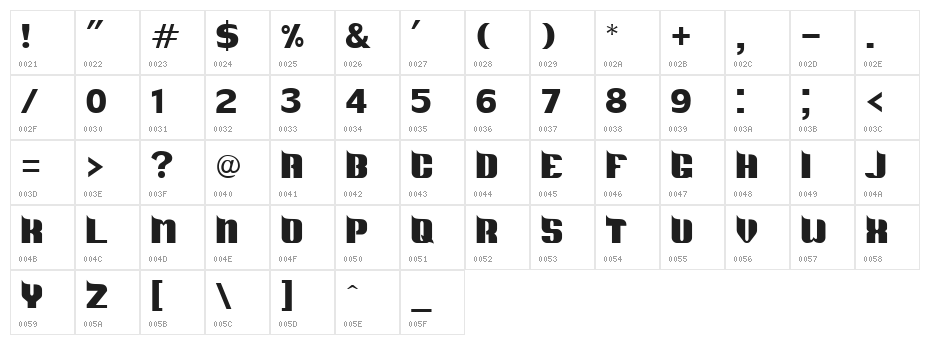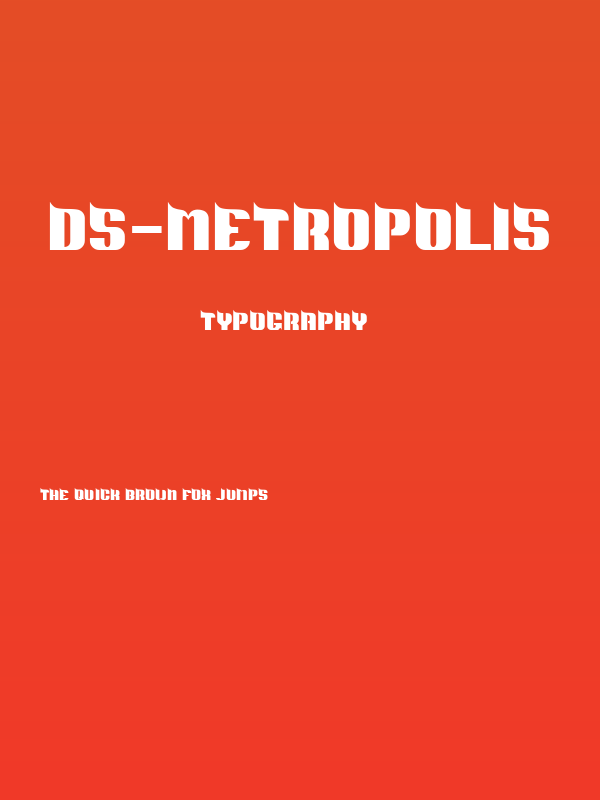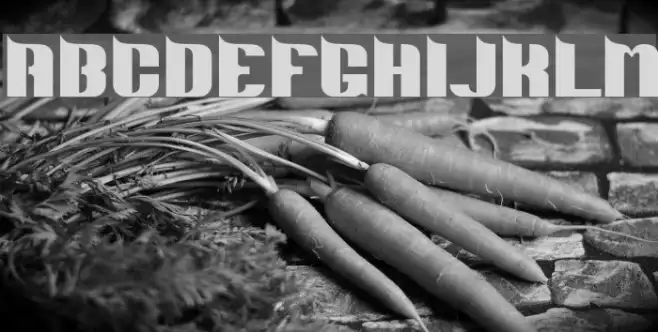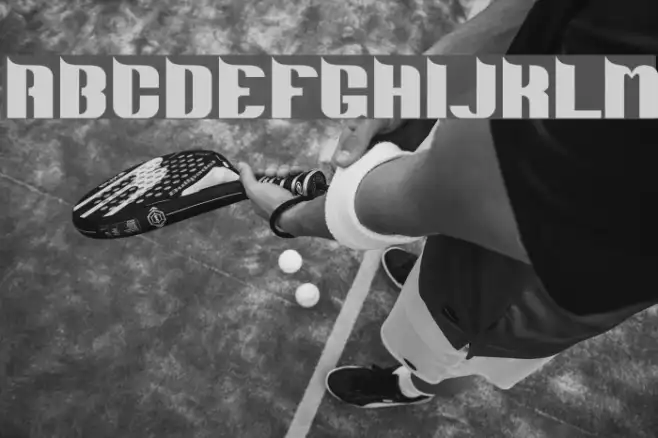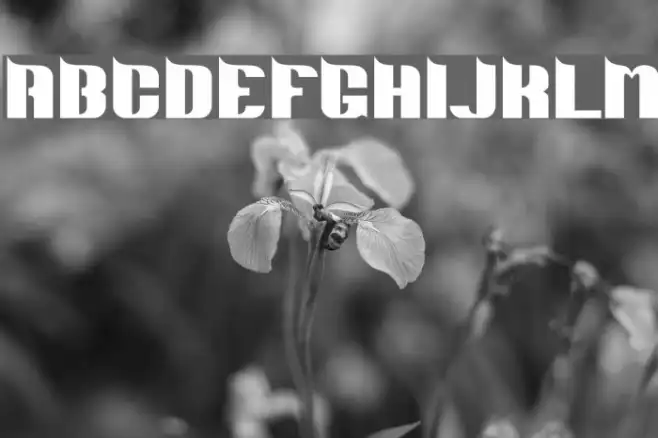
DS-Metropolis Font
DS-Metropolis Description
This font features a bold and striking design with a modern, industrial feel. The characters are crafted with strong, angular lines and a geometric structure, giving them a robust and impactful appearance. The uppercase letters are particularly prominent, with a uniform height and consistent width, while the lowercase letters maintain the same boldness with slightly more curvature. The numerals are equally bold, ensuring they stand out in any context. Special characters are designed to match the overall aesthetic, providing a cohesive look across all glyphs. This font is ideal for making a statement, with its high contrast and distinctive style.
| Proposed Projects | Ideal for branding, headlines, posters, and any design project requiring a strong visual impact. |